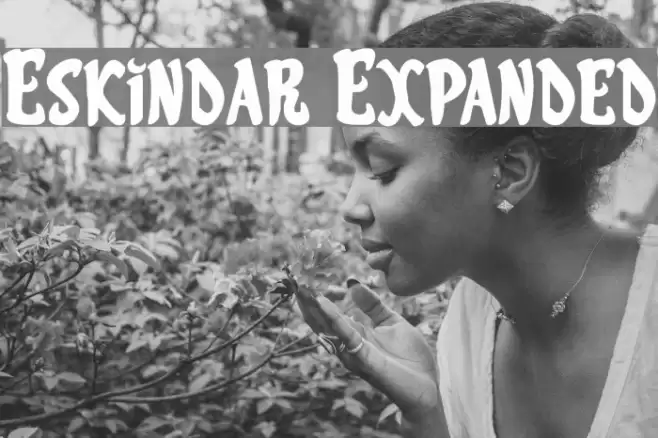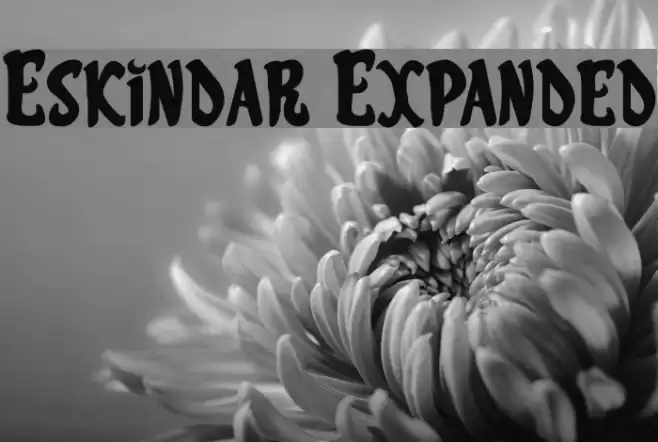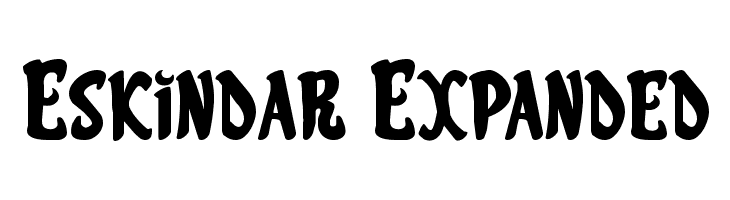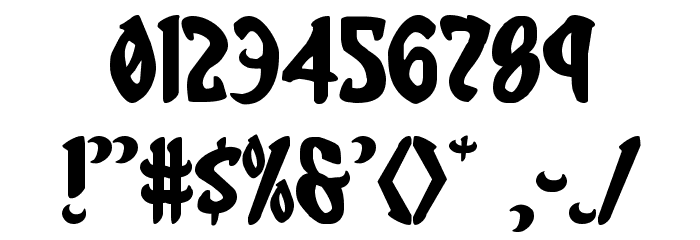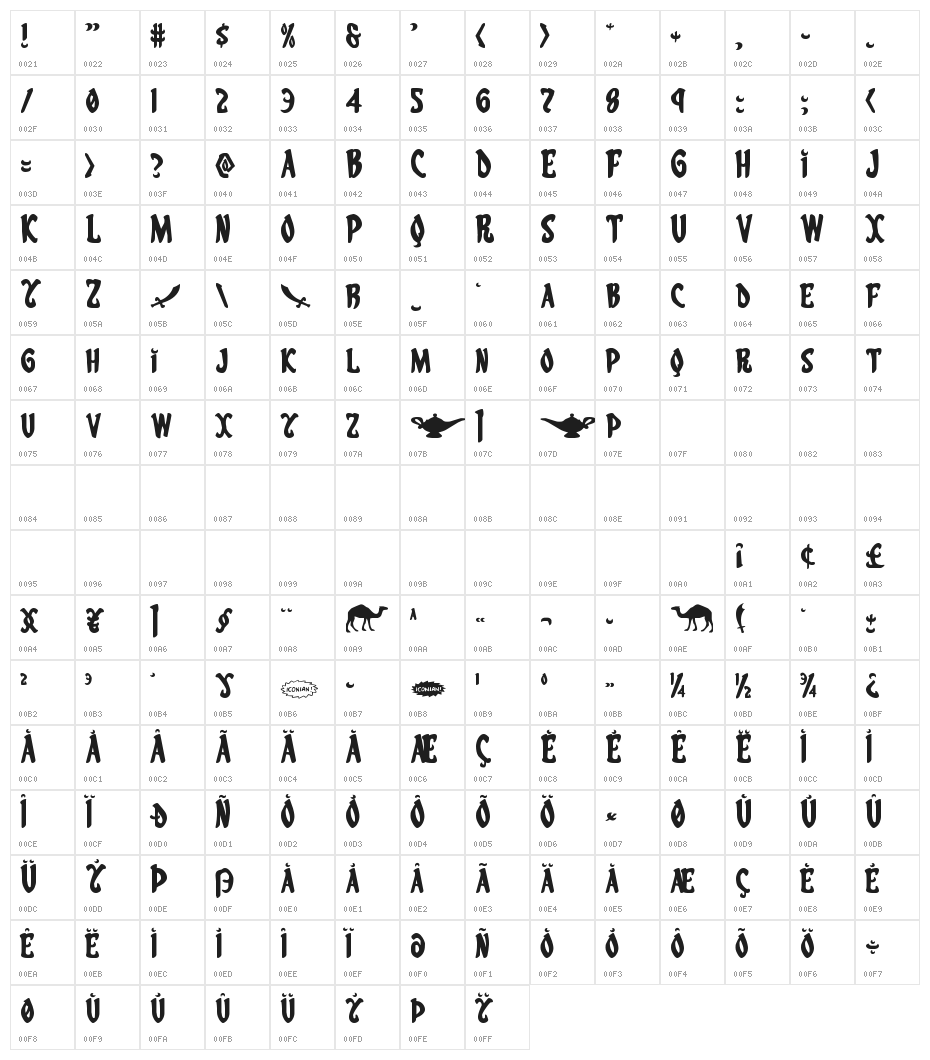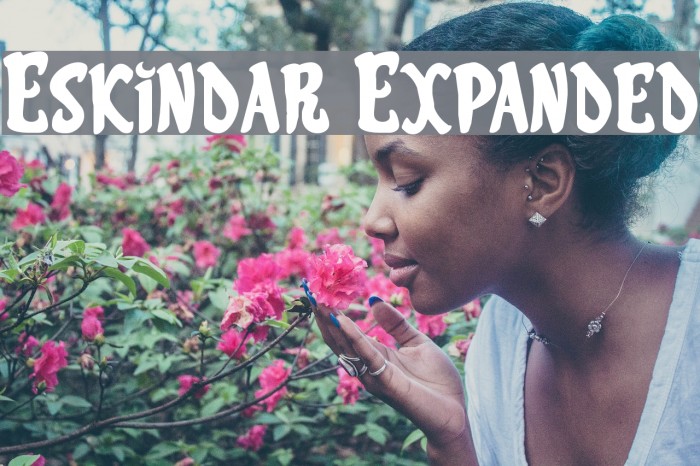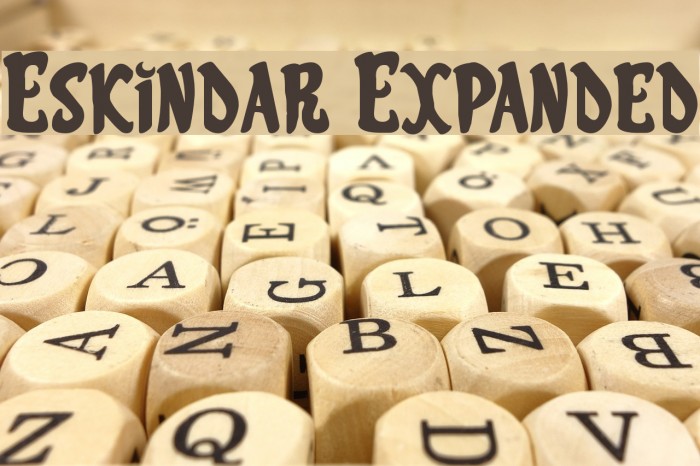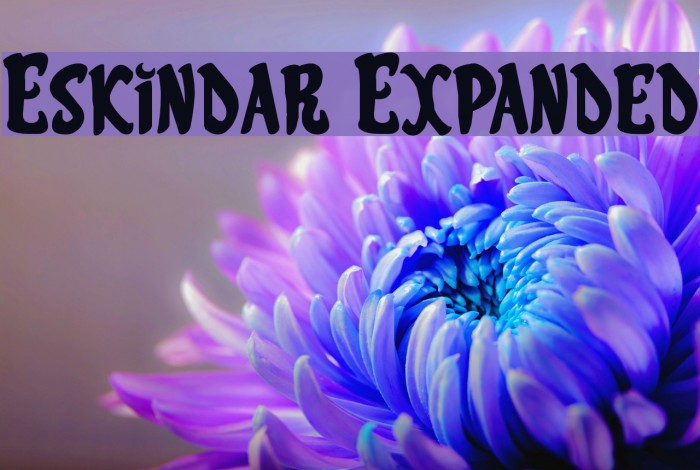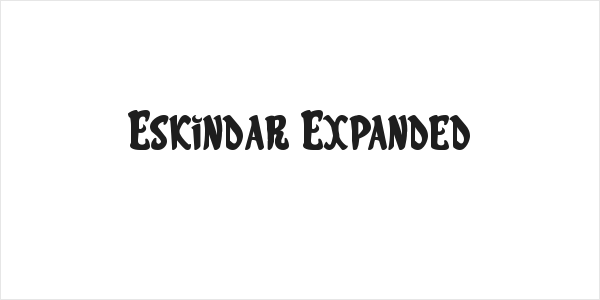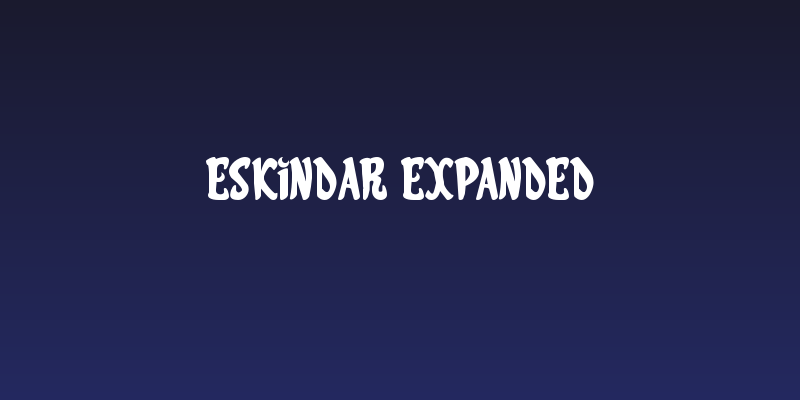
Eskindar Expanded Font
Eskindar Expanded Description
This font features a bold and playful design with a unique, artistic flair. The characters are thick and have a whimsical, almost cartoonish quality, making them stand out with their exaggerated curves and strokes. The uppercase letters are particularly striking, with some characters having distinctive flourishes that add to the font's decorative appeal. The numbers and special characters maintain the same bold style, ensuring consistency across all glyphs. This font's expanded width gives it a strong presence, making it ideal for attention-grabbing headlines or creative projects.
A bold, playful font with exaggerated curves and a whimsical style from Uncategorized fonts.
- Proposed Projects: Ideal for children's books, posters, branding, and any project requiring a fun and eye-catching typeface.